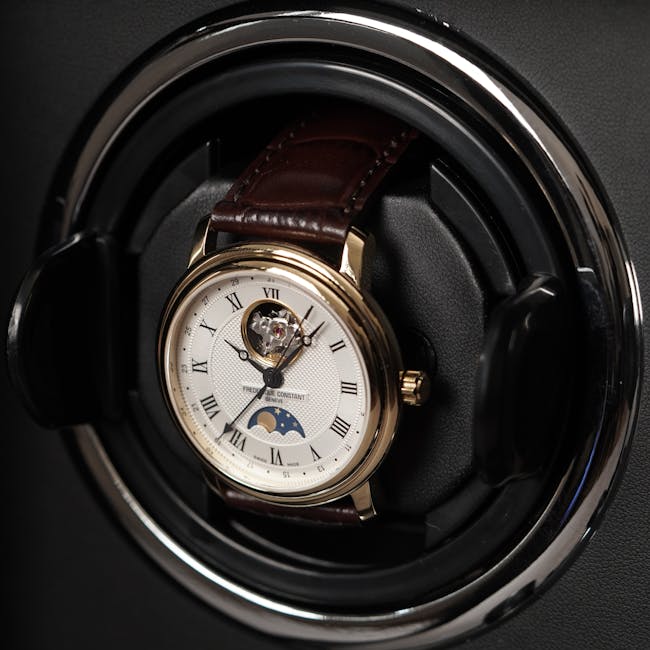
What is Numeric Fonts?
In the visual world of design, numbers do more than just count. They communicate identity, emotion, and style. Welcome to the fascinating domain of numeric fonts—a niche but powerful element in branding and logo design. Numeric fonts are not just a tool for conveying numbers but are integral to creating a brand’s visual language. Just as a specific color palette or iconography can define a brand, so can the choice of numeric fonts. Their significance extends far beyond mere aesthetics, playing a pivotal role in how brands present themselves to the world.
Understanding Numeric Fonts
Definition of Numeric Fonts
When we talk about numeric fonts, we’re referring to typefaces specifically designed to represent numbers. Unlike standard typefaces that include a full set of characters, numeric fonts focus exclusively on the digits 0 through 9. These fonts often possess unique characteristics such as varied stroke widths, decorative elements, and stylistic flourishes that cater to specific design needs. Typography.com offers a diverse array of numeric fonts that demonstrate how numbers can be reimagined as visual art.
Types of Numeric Fonts
Numeric fonts come in an array of styles to suit different design contexts. They can be broadly categorized into:
-
Classic Numeric Fonts: These are timeless designs that often find their place in formal and traditional settings, such as clock faces or classic book designs.
-
Modern Numeric Fonts: Sleek and minimalist, these fonts align with contemporary aesthetics and are popular in digital interfaces and modern branding.
-
Specialty Numeric Fonts: These include novelty and themed designs used for specific purposes, such as sports jerseys or vintage signage. Websites like MyFonts provide a platform to explore such diverse numeric font styles.
The Role of Numeric Fonts in Branding
Impact on Brand Identity
Why do fonts matter so much in branding? Font psychology plays a crucial role in shaping perceptions. The right numeric font can reflect a brand’s personality and values. For instance, a tech company may opt for sleek, modern numbers, conveying innovation and forward-thinking. On the other hand, a vintage clothing brand might choose a classic serif font, suggesting nostalgia and quality. Designmodo delves deeper into how fonts influence brand perception and identity.
Case Studies of Effective Use
Some brands have mastered the art of using numeric fonts to their advantage. Consider the iconic “007” logo from the James Bond franchise—its bold, stylized digits immediately evoke sophistication and intrigue. Similarly, sports brands often use dynamic numeric fonts to convey energy and motion, as seen in the branding of teams like the New York Yankees. These examples illustrate how a well-chosen numeric font can become synonymous with a brand’s image.
Choosing the Right Numeric Font
Considerations for Selection
Selecting a numeric font isn’t merely a matter of taste. It involves a careful balance of factors:
-
Legibility: Numbers must be easily readable in various sizes and contexts.
-
Style: Choose a style that aligns with your brand’s overall aesthetic and message.
-
Emotional Impact: Consider how the font makes people feel; does it evoke the right emotions connected to your brand?
Future Trends in Numeric Fonts
Technological Advancements
As technology advances, so does the world of typography. Variable fonts, for instance, allow designers to tweak weight, width, and other attributes in real-time, offering unprecedented flexibility. This technology is transforming how numeric fonts are created and used, enabling more personalized and dynamic branding solutions.
Predicted Styles and Uses
Looking ahead, we can expect to see a blend of retro and futuristic styles in numeric fonts. The resurgence of nostalgia in design may bring back ornate and decorative numbers, while the push for digital innovation will continue to drive minimalist and abstract styles. These trends will shape how brands utilize numeric fonts in everything from digital interfaces to physical merchandise.
Numeric fonts might be a small part of your branding toolkit, but their impact is anything but minor. From defining brand identity to setting the tone of communication, the right numeric font can enhance your brand’s narrative. As we look to the future, staying informed about trends and leveraging the right resources will be key to making smart font choices. Just as a picture is worth a thousand words, a well-chosen numeric font speaks volumes about your brand.